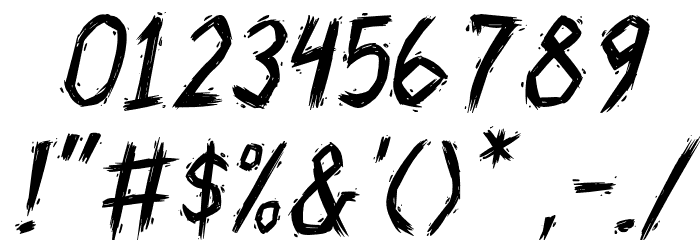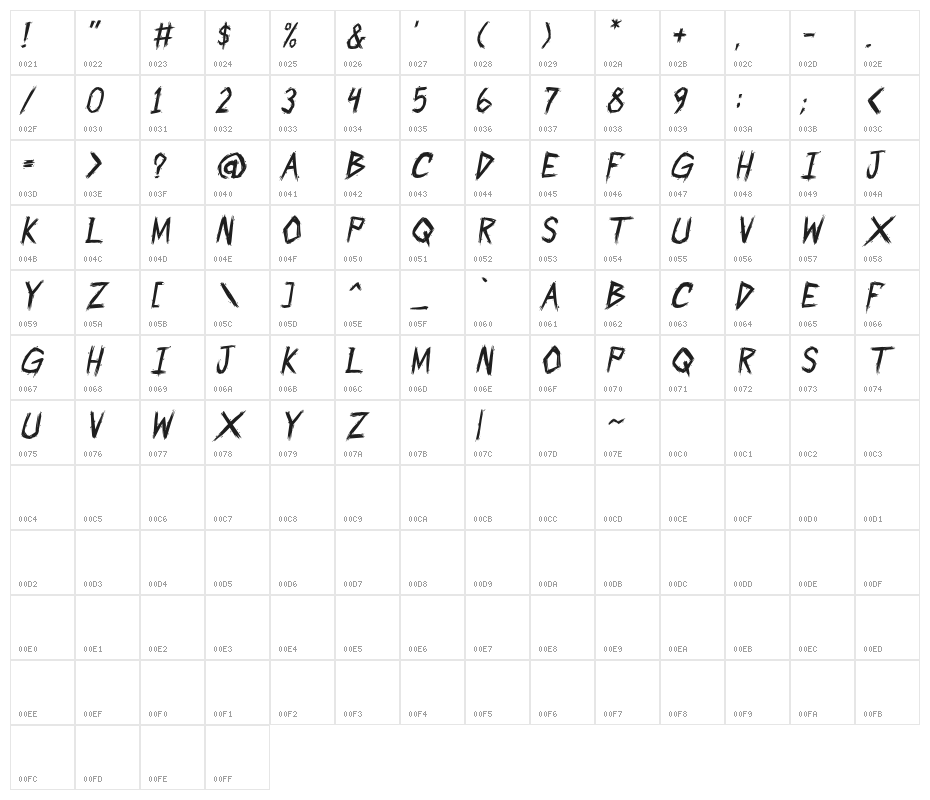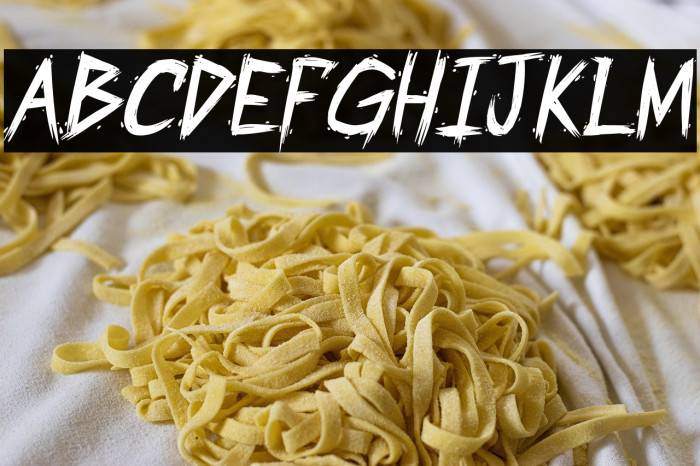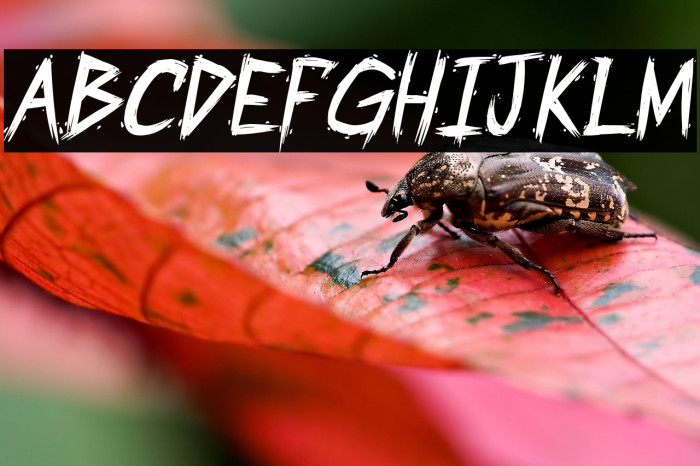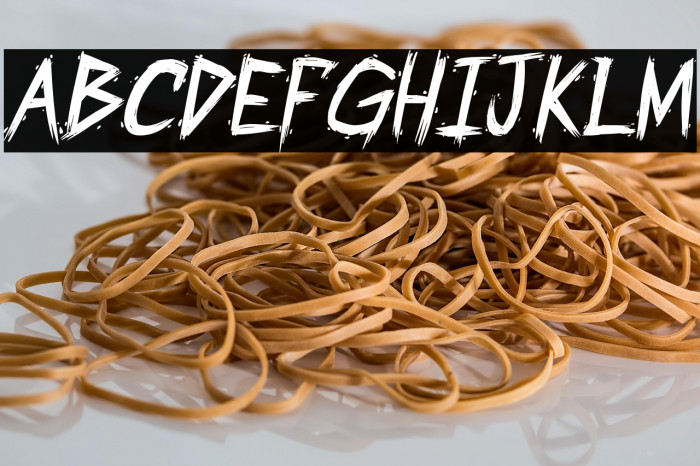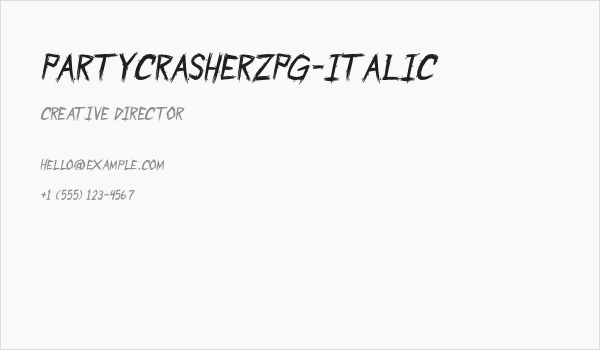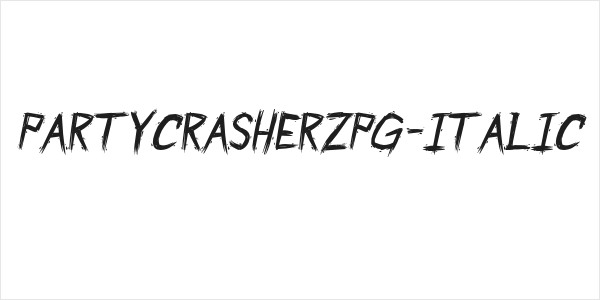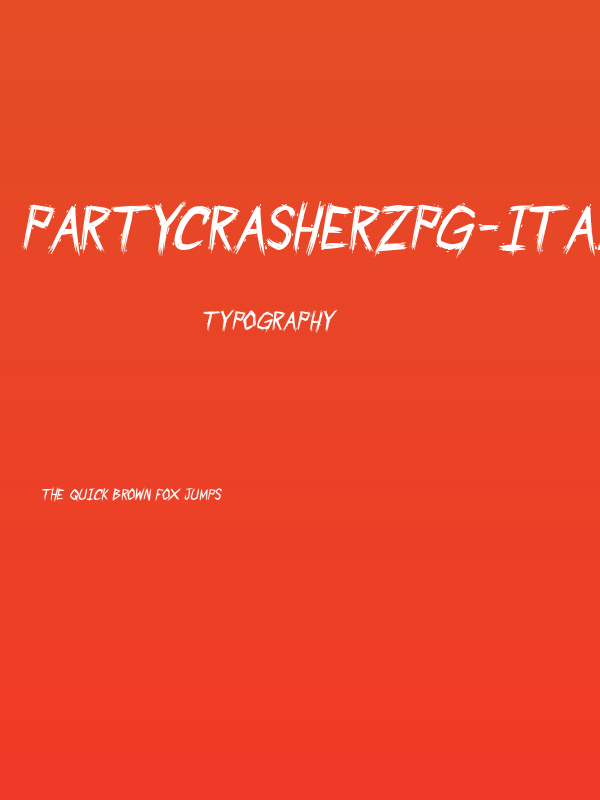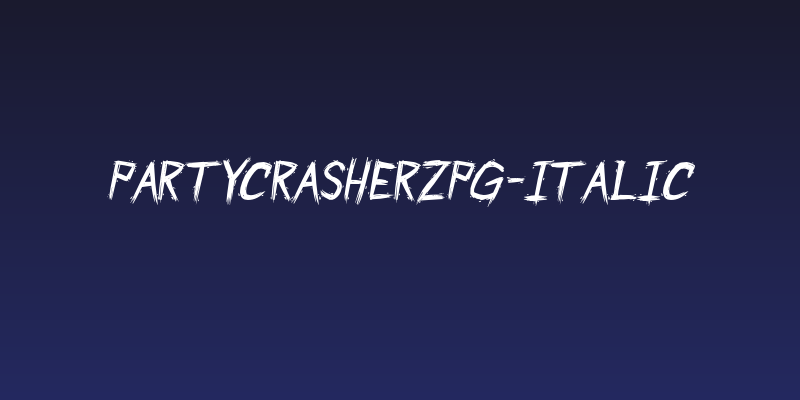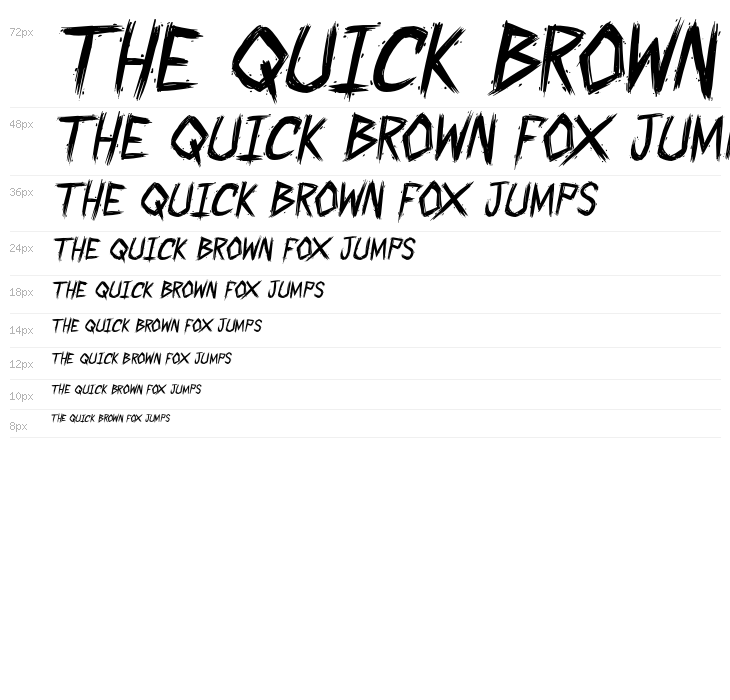
PartyCrasherzPG-Italic Font
PartyCrasherzPG-Italic Description
This font features a bold and dynamic style with a distinctly edgy and energetic appearance. The characters are designed with sharp, jagged edges and a slightly irregular form, giving them a hand-drawn, graffiti-like aesthetic. The strokes are thick and uneven, creating a sense of movement and intensity. The italic slant adds to the sense of speed and urgency, making it ideal for projects that require a bold statement. The font's unique style is both modern and rebellious, perfect for capturing attention and conveying a sense of excitement.
| Overall Style | Modern, Rebellious |
| Proposed Projects | Ideal for music album covers, event posters, streetwear branding, and edgy social media graphics. |